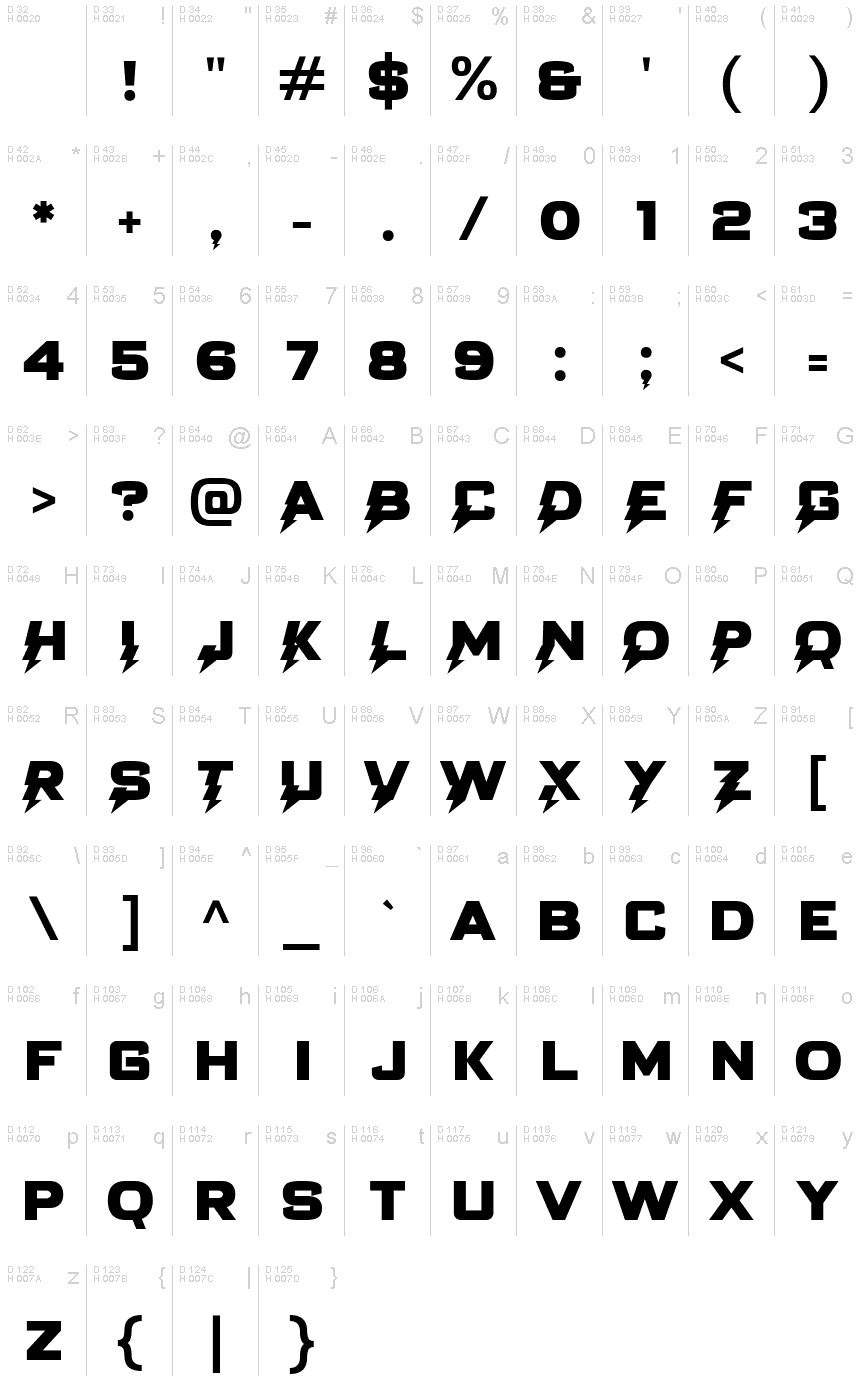
Dark Adam is an exciting display font designed by Faqih Fawaji that's perfect for any project that wants to make a bold statement. With its expanded width and bold weight, Dark Adam commands attention and adds a cinematic feel to any design. It's particularly well-suited for movie posters, film titles, and other projects that need to convey drama and excitement. Whether you're creating a horror movie poster or promoting an action-packed adventure film, Dark Adam will help your text stand out in style. So go ahead – let Dark Adam bring some Hollywood glamour to your next project!
Dark Adam